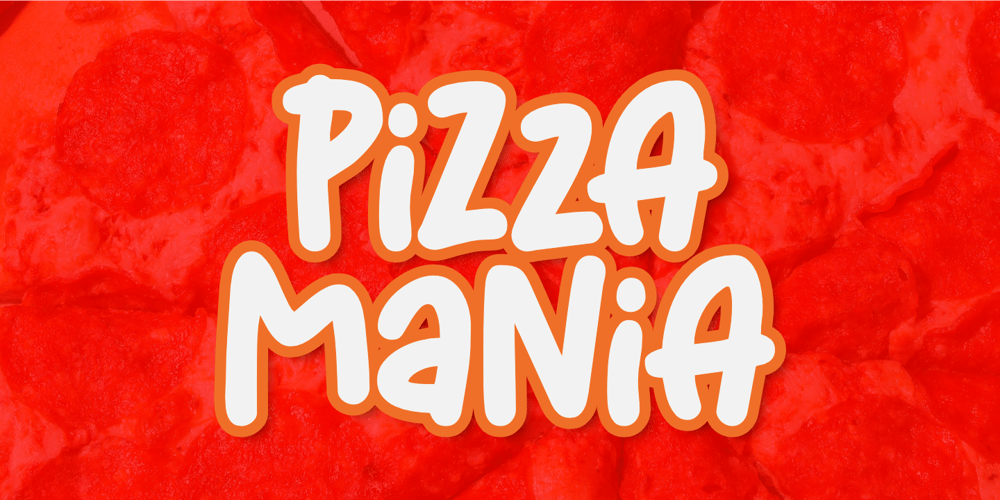
Pizza Mania Font Family was designed by Aldy Sidik and published by Epiclinez. Pizza Mania contains 1 styles and family package options. Pizza. It’s our life, it’s your life. It’s what you live for. We can’t live without it, so it’s time to get to the root of the problem. As food lovers ourselves, we wanted to create a font that captured our love for pizzas. Pizza Mania is a quirky & lively display font that will make all your designs pop!So what’s included : Basic Latin Uppercase and Lowercase Numbers, symbols, and punctuations Multilingual Support. Fully accessible without additional design software Simple Installations works on PC & Mac Thank You!